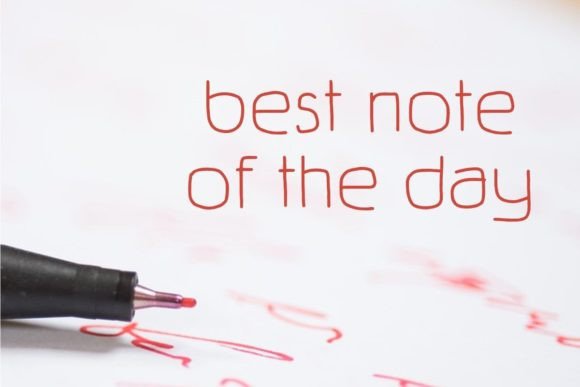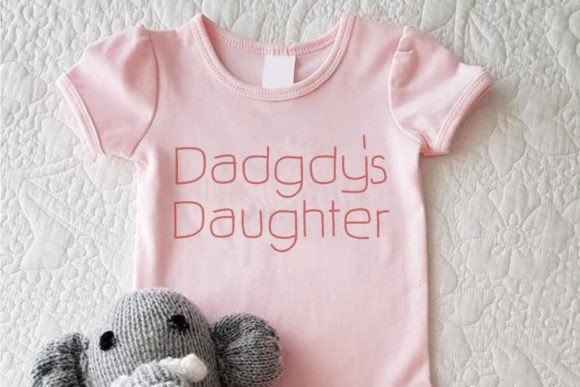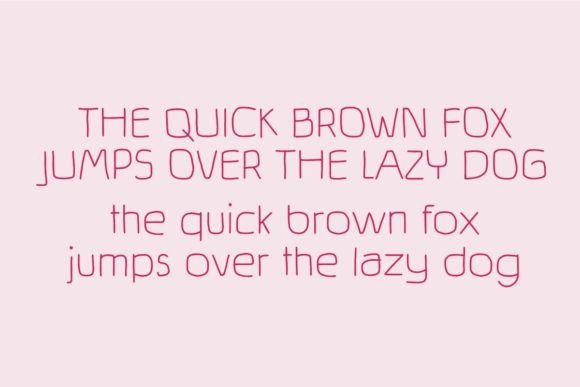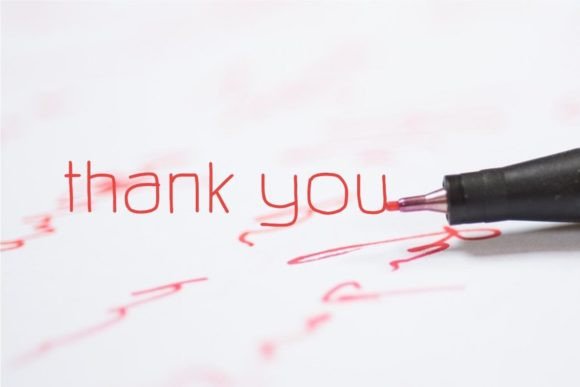
Introduction to Minori Font
Have you ever stared at a blank canvas, feeling like the perfect design is just out of reach? The spark of creativity is there, but the right tools are missing. For designers, finding the perfect font can be the game-changer that brings a project to life. That’s where the Minori Font comes in – a clean, modern sans serif font that’s perfect for a wide range of creative projects.
With its monoline characters and sleek design, Minori Font is an excellent addition to any designer’s toolkit. Whether you’re working on a text-heavy paragraph, a website, or even a t-shirt design, this versatile font is sure to deliver high-quality results. And the best part? It’s available for free download, making it an accessible design resource for creatives of all levels.
Key Features of Minori Font
- High-quality, professional font designed for creative projects, available for free download.
- Comes with a transparent background, allowing for seamless integration with any design resource.
- Includes multiple font styles, including regular, bold, italic, and bold italic, to suit various design needs.
- Unique characteristic: Minori Font features a unique blend of modern and traditional design elements, making it a versatile design resource.
Honest Review: Minori Font
I recently came across the Minori Font while searching for a suitable design resource for a creative project. I must say, it caught my attention with its unique and elegant style. One of the standout features of this font is its ability to be used with a transparent background, which adds an extra layer of flexibility to your design.
- ✨ High-Quality Typography – Minori Font boasts beautiful and crisp typography, making it perfect for any creative project.
- ⚠️ Limited Character Set – The Minori Font has a limited character set, which may not be suitable for projects that require a wide range of characters.
- ⚠️ Not Ideal for Body Text – While Minori Font is perfect for headings and titles, it may not be the best choice for body text due to its relatively small character set.
Overall, I’m impressed with the Minori Font. It’s a high-quality design resource that can add a touch of elegance to your creative projects. While it may have some limitations, it’s definitely worth considering for your next design project.
Tips for Getting the Most Out of Minori Font
To get the most out of the Minori Font, experiment with different font sizes, colors, and styles to create unique and engaging designs. The font’s transparent background feature also allows for easy layering and editing.
The Minori Font is commonly used in branding, marketing materials, and digital graphics. Its high-quality design and versatility make it a popular choice among designers and creatives.